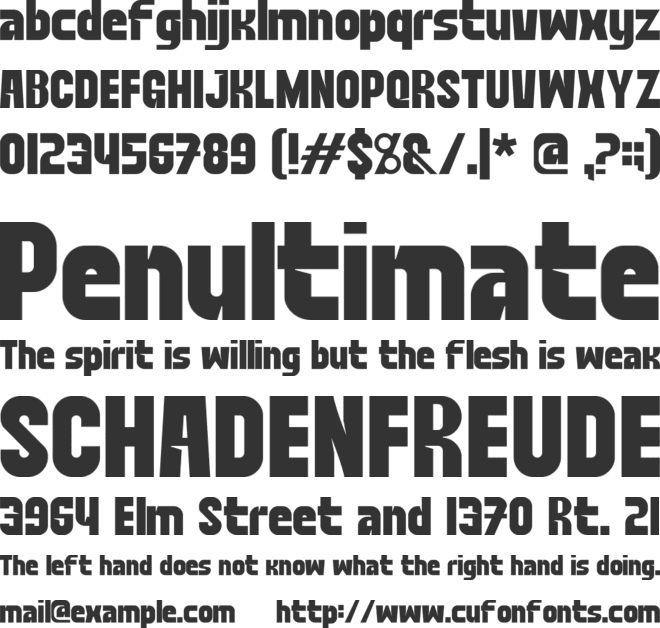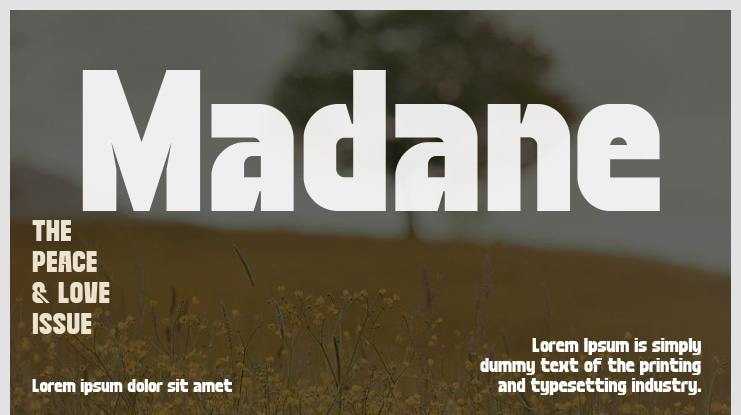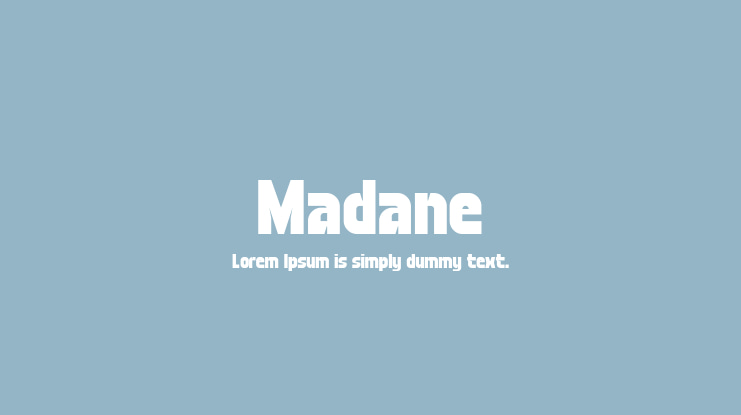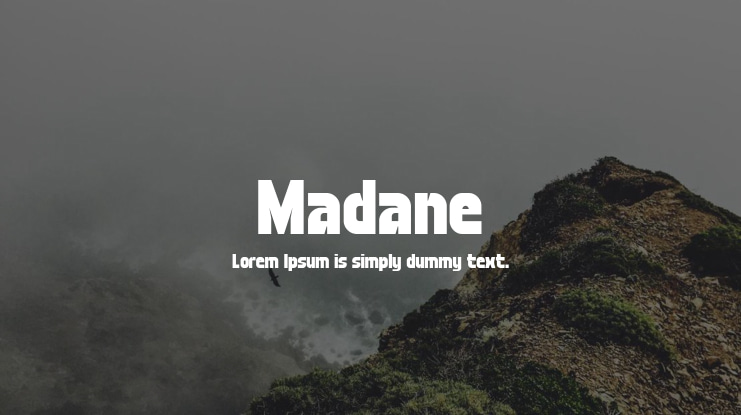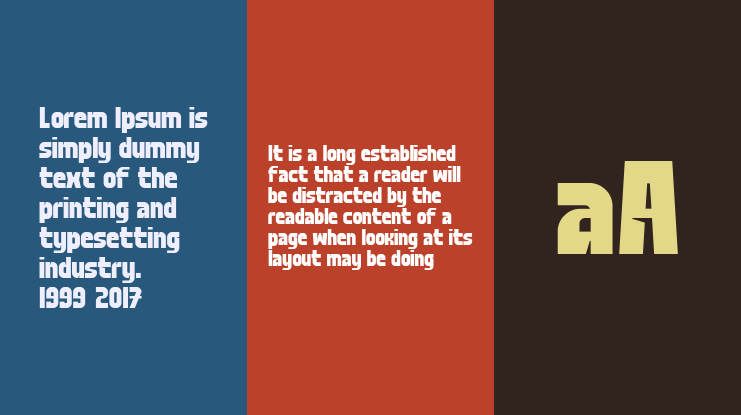
Madane Font
Madane – Sans Serif Font
This font features a bold design, ideal for projects requiring a masculine touch.
• Uppercase & lowercase characters, numerals & punctuations (Opentype Standard)